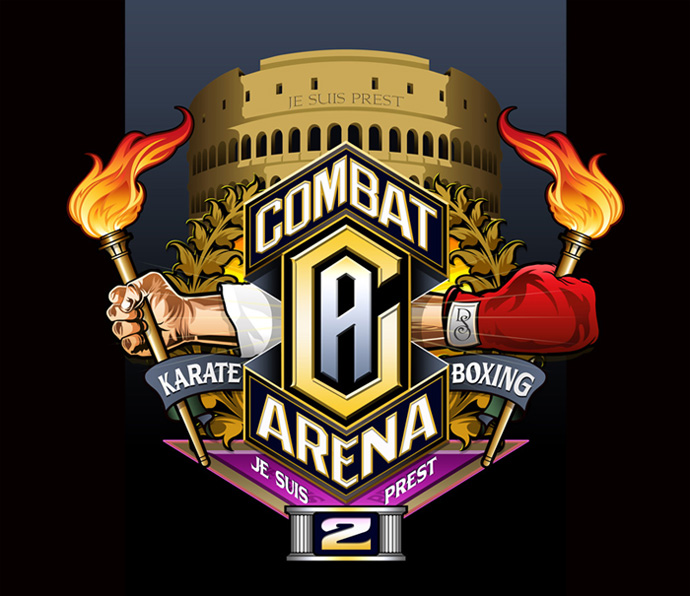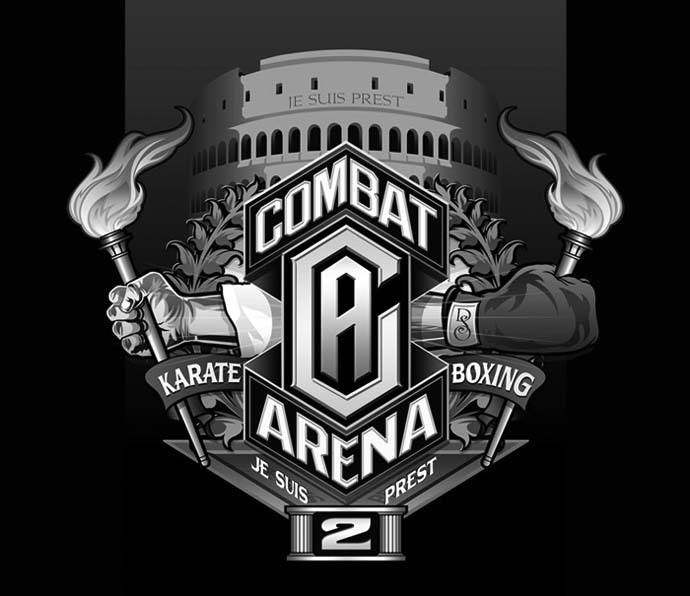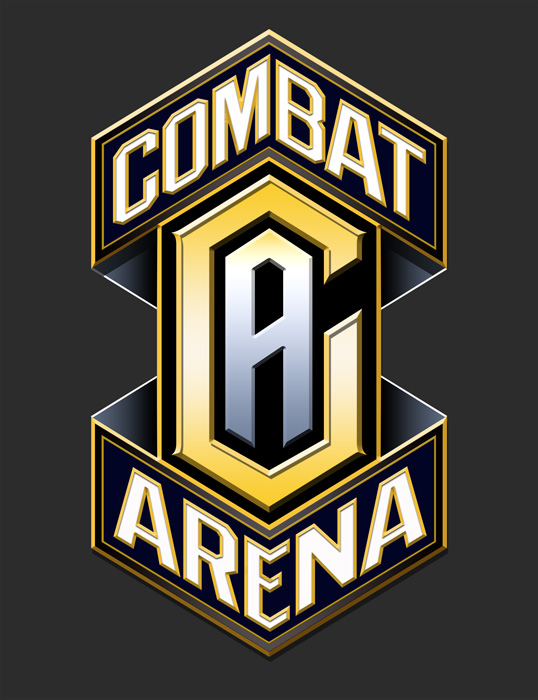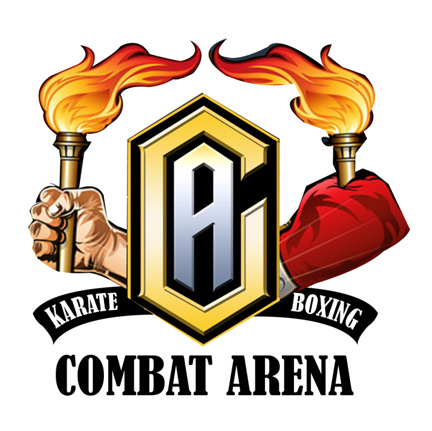
I made this design for a friend who has started his own Martial Arts gym.
He asked me to design him a logo, I made this over the weekend for him. I started off with hand sketching and then into Photoshop.
A bit different to glass work but still fun to create these logos.
Cool, very realistic flames. Where they painted or a preset tool please David?
They were vectored and just faded using the gradient tool. They are more to look like an illustration than look real Anthony.
In one weekend? That was quick. Looks very good, like the flames also.
You just throw the nice designs out of your sleeve.
But as a sign man I have to make a little point in the message of the logo.
Where in the logo can I see that it is a Martial Arts gym?
Could be a logo for a sporting event or an fighting arena.
Wish I had those quick design skills you thought and trained yourself through the years.
Dave, I have a huge level of respect for you and you work so it kills me to say this design doesn't make a very good logo. There is just to much going on here for the actual name to cut through and be memorable especially when presented in small sizes such as a business card or letterhead. In my opinion you could eliminate the colosseum, wreath, the "Je Suis Prest" triangle and the columns with the number "2" as I as the viewer have no idea why they are there.
If it were me, I would reduce the size of the "C A" block and the fist and glove while increasing the size of the "Karate" and "Boxing" ribbons. You could even go as far as removing the torches all together.
Sorry if that was harsh but I assume you posted this to get honest feedback. It's always easier to criticize than to create.
I do not agree Paul. This style of design is totally is sinq with the modern trendy style of design. People who will go to this gymm are young clubbing people. And this design has the same air and feel of trendy club-flyers being hot at this very moment.Paul Jukes wrote:Dave, I have a huge level of respect for you and you work so it kills me to say this design doesn't make a very good logo. There is just to much going on here for the actual name to cut through and be memorable especially when presented in small sizes such as a business card or letterhead. In my opinion you could eliminate the colosseum, wreath, the "Je Suis Prest" triangle and the columns with the number "2" as I as the viewer have no idea why they are there.
I know I will be kicked in the butt for saying this, but maybe the design books should get an epilogue since in our days of multimedia the eye and brain works differently then it used to, back in the old and clean days of design. The power of a design nowadays is to recognize it. This design is readable when it is up and close and it is surely recognizable when be seen from a distance.
The flames are terrific!
It's great that you like it Erik, I was just putting in my perspective.
Trends are probably different in my backwoods country but that's irrelevant because a good logo should not respond to trends but be simple and timeless in order to be useful to the company in the broadest range of media for a minimum of 20 years. If this design was for a poster my opinion would be different. Lets just say I wouldn't want it embroidered on my parka.
I like the slant to the hands and flames.. Thanks for your input. Kelly I like that in black and white also,probably could slightly darken the outer areas of the colour version.....
I keep telling ye, less is more man, its cheaper too and quicker.